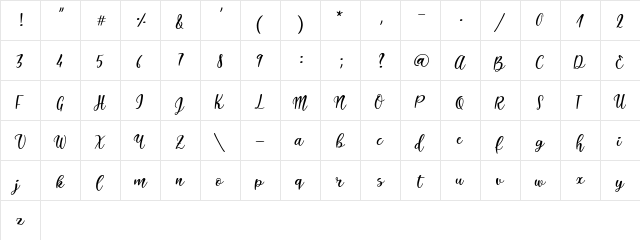
Italian Breakfast Regular
| Foundry | rbfonts.com |
| Designer | Roland Huse |
Design Context for Italian Breakfast Typeface
Italian Breakfast is a composed and adaptable typeface that performs quietly and consistently across a wide range of design contexts.